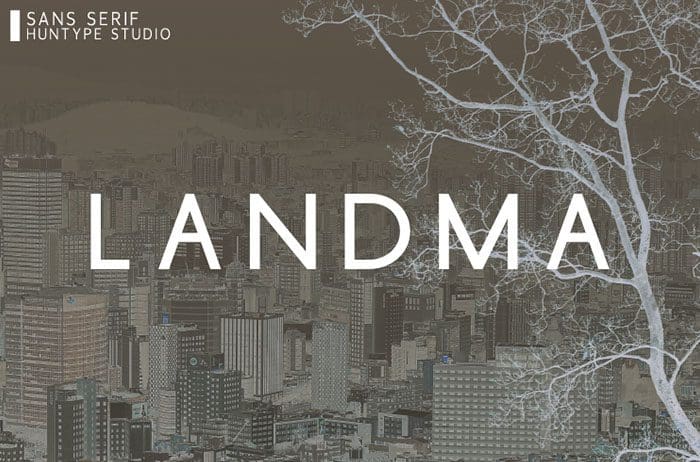
Landma Sans Serif Font
Landma Sans Serif Font looks fancy and sophisticated. It features clean characters that will look particularly adept when used in logos, branding, packaging design, and much more. This masterfully designed sans serif font is a true must-have. Thanks to Mas Anis for sharing this font! Take a look at this portfolio for more of his stunning fonts.